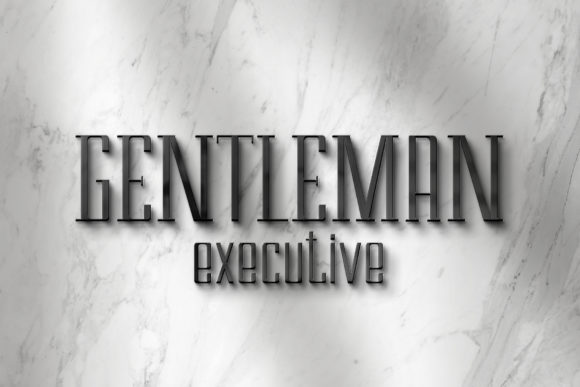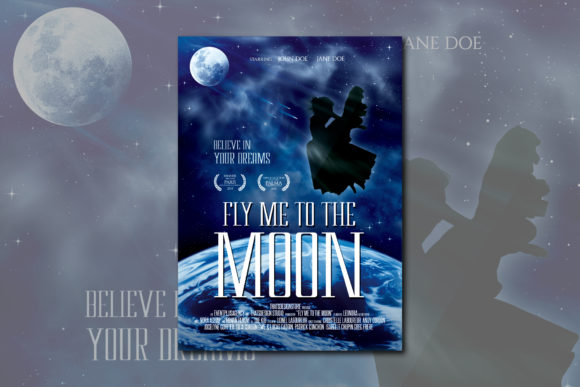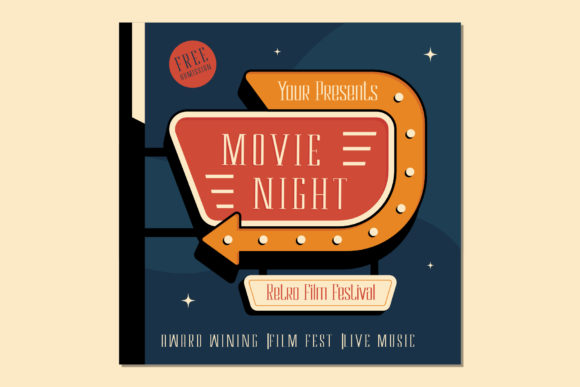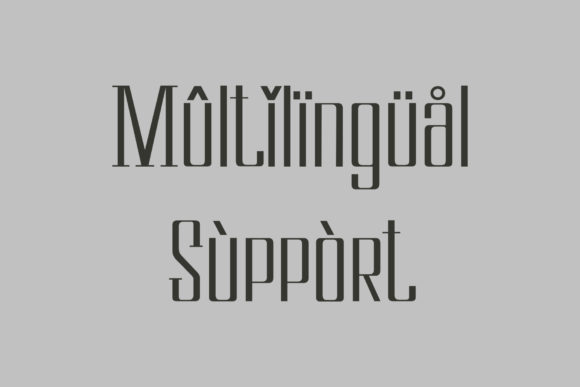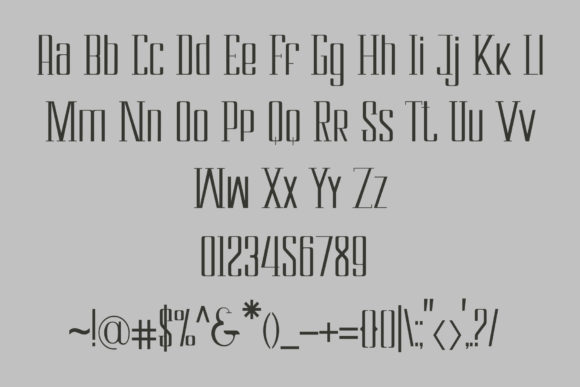
Introducing Cloudwick Font: A Bold and Authentic Serif Font for Creative Projects
Are you a designer or crafter looking for a font that can add a touch of boldness and authenticity to your creative projects? Look no further than Cloudwick Font! This versatile serif font is perfect for a wide range of applications, from logos and headings to t-shirts, letterhead, signage, labels, news, posters, badges, and more.
What is Cloudwick Font?
Cloudwick Font is a carefully crafted serif font that exudes confidence and sophistication. Its bold and authentic design makes it perfect for projects that require a strong visual statement. Whether you’re working on a branding project, creating a poster, or designing a t-shirt, Cloudwick Font is sure to make a lasting impression.
Key Features of Cloudwick Font
- Bold and Authentic Design: Cloudwick Font features a bold and authentic serif design that is sure to grab attention.
- Versatile: This font can be used for a wide range of applications, from logos and headings to body text and more.
- Easy to Read: Despite its bold design, Cloudwick Font is easy to read, making it perfect for projects that require a clear and concise message.
- Highly Customizable: Cloudwick Font can be customized to fit your project’s specific needs, from adjusting the font size to changing the color scheme.
Use Cases for Cloudwick Font
Cloudwick Font is an incredibly versatile font that can be used for a wide range of projects, including:
- Logos: Create a bold and memorable logo for your brand with Cloudwick Font.
- Headings: Use Cloudwick Font to create eye-catching headings for your website, blog, or marketing materials.
- T-Shirts: Design a bold and stylish t-shirt with Cloudwick Font that’s sure to turn heads.
- Letterhead: Create a professional-looking letterhead with Cloudwick Font that’s perfect for business correspondence.
- Signage: Use Cloudwick Font to create eye-catching signage for your business or event.
- Labels: Design labels for your products or packaging with Cloudwick Font.
- News: Use Cloudwick Font to create bold and attention-grabbing headlines for your news articles.
- Posters: Create a stunning poster with Cloudwick Font that’s sure to grab attention.
- Badges: Design badges for your employees, volunteers, or event attendees with Cloudwick Font.
Why Choose Cloudwick Font?
There are many fonts to choose from, but Cloudwick Font stands out from the rest. Here are just a few reasons why:
- Unique Design: Cloudwick Font features a unique and authentic design that’s sure to make your project stand out.
- High-Quality: Cloudwick Font is a high-quality font that’s designed to deliver exceptional results.
Cloudwick Font is a bold and authentic serif font that’s perfect for designers and crafters looking to add a touch of sophistication to their creative projects. With its versatile design, ease of use, and affordability, Cloudwick Font is an excellent choice for a wide range of applications. Whether you’re working on a branding project, creating a poster, or designing a t-shirt, Cloudwick Font is sure to deliver exceptional results.